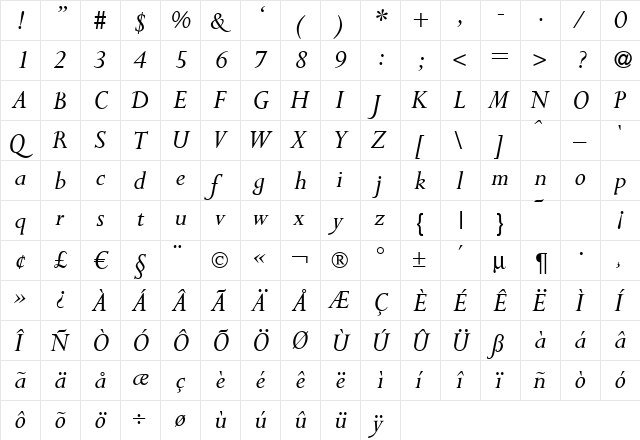
P700-Roman Italic
Design Context for P700-Roman Typeface
P700-Roman takes a measured approach to typography — its balanced proportions and neutral character make it a reliable workhorse for both digital and print work. Its italic angle brings a sense of urgency and motion to the letterforms.